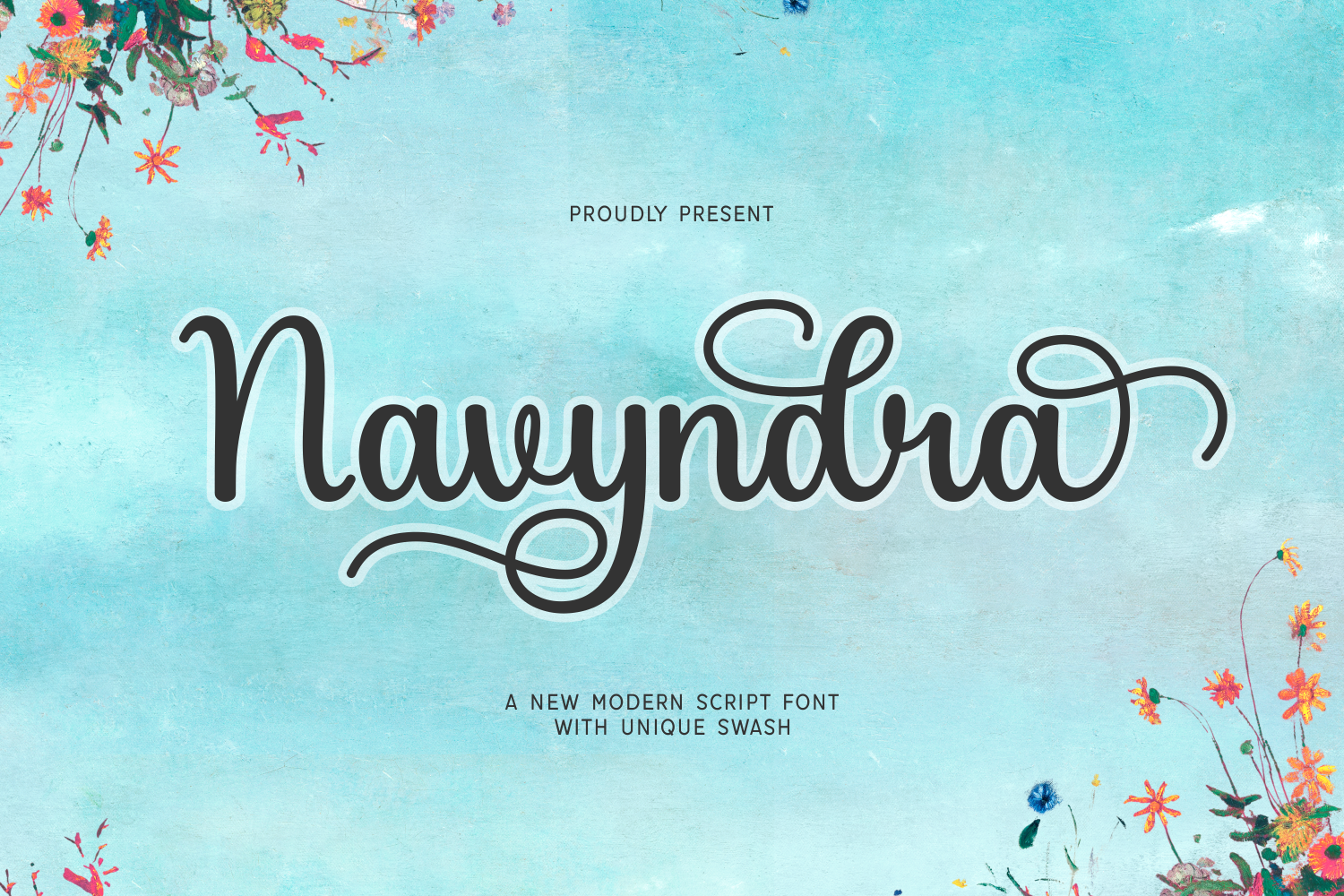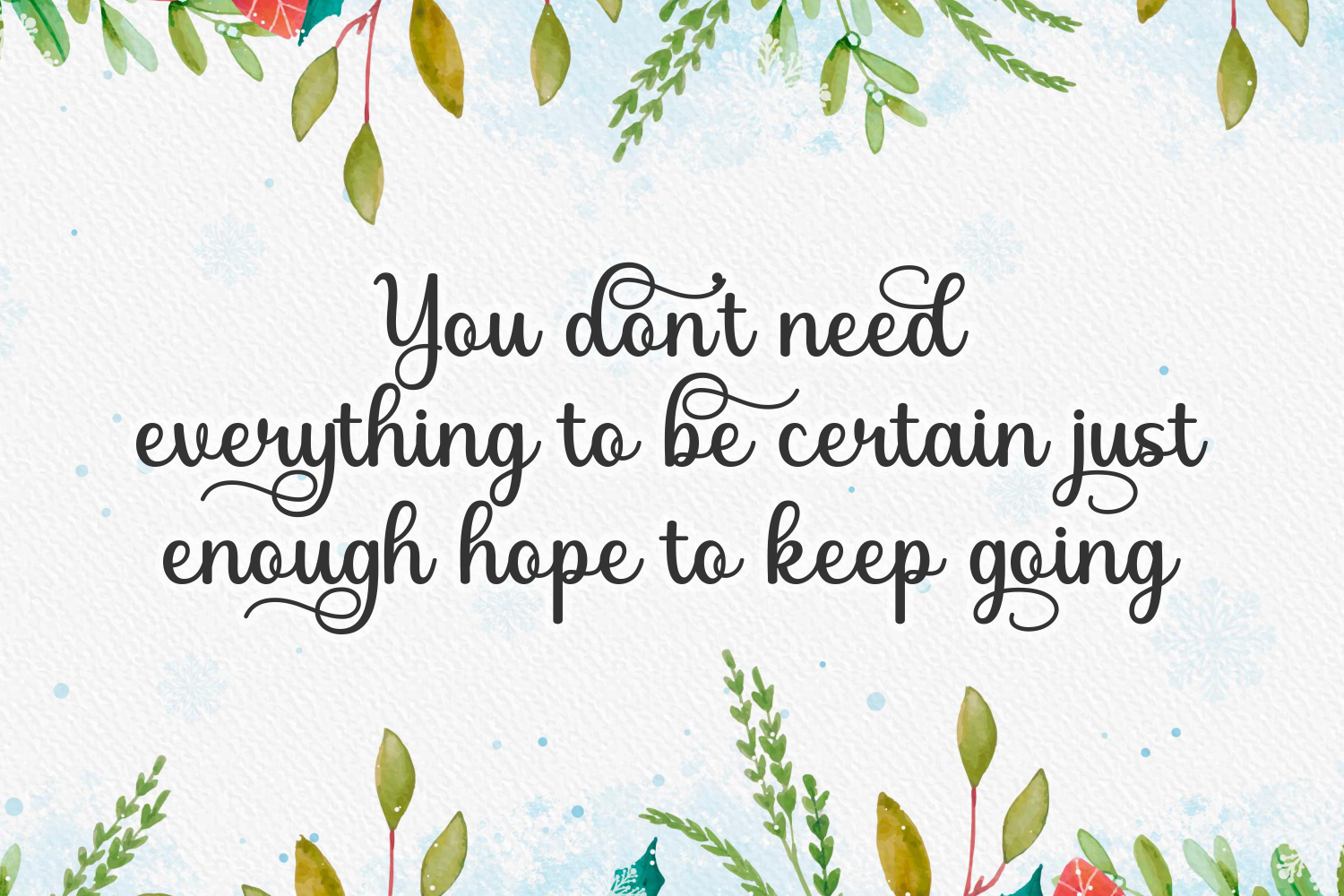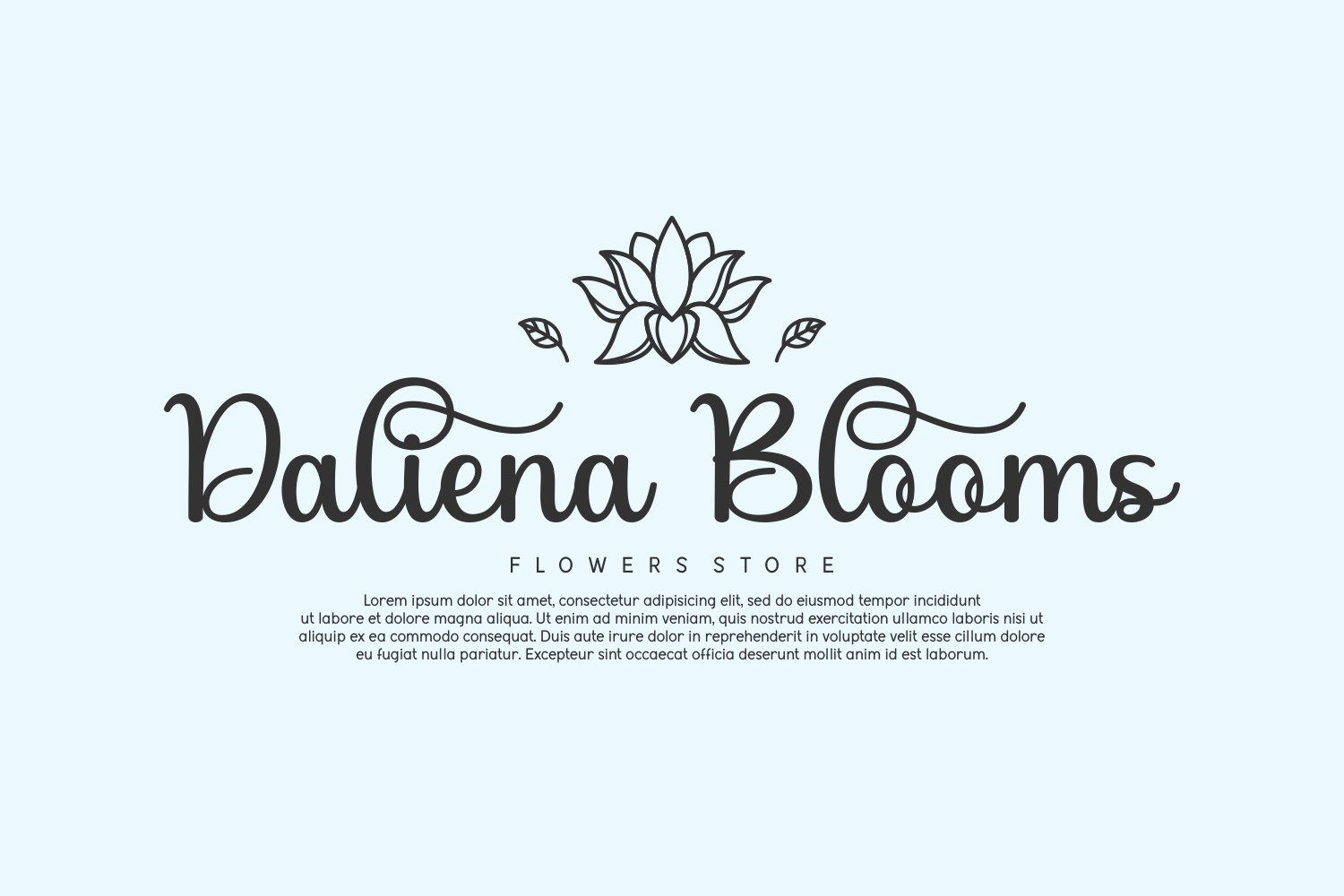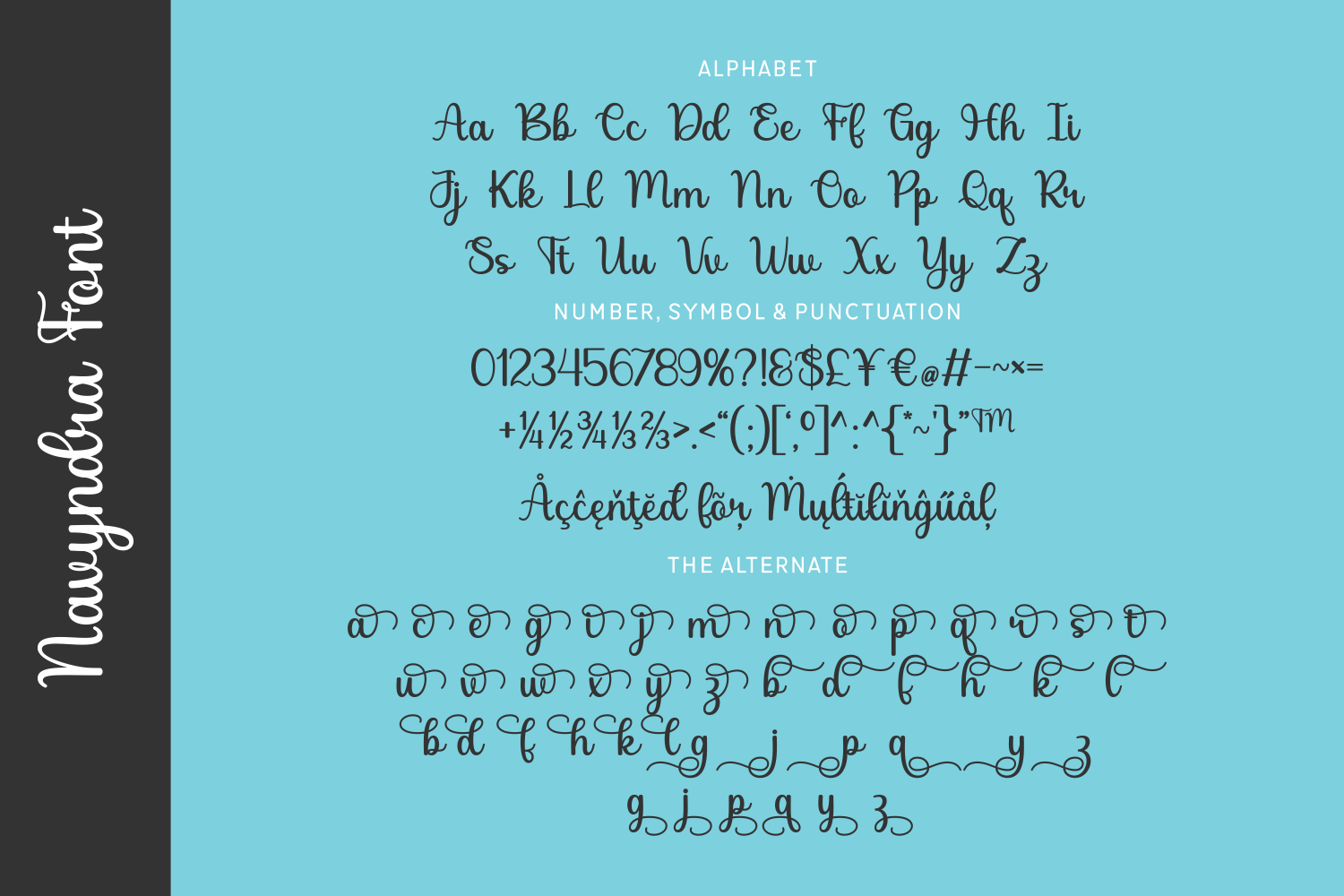
Navyndra is a charming modern script font that effortlessly blends elegance with playful flair. With its smooth, rounded letterforms and beautifully extended swashes, Navyndra adds a romantic and artistic touch to any design.